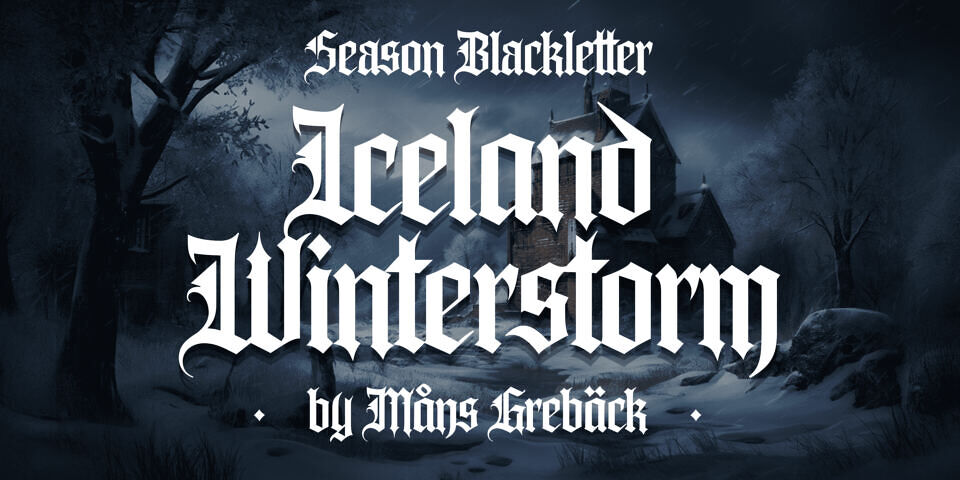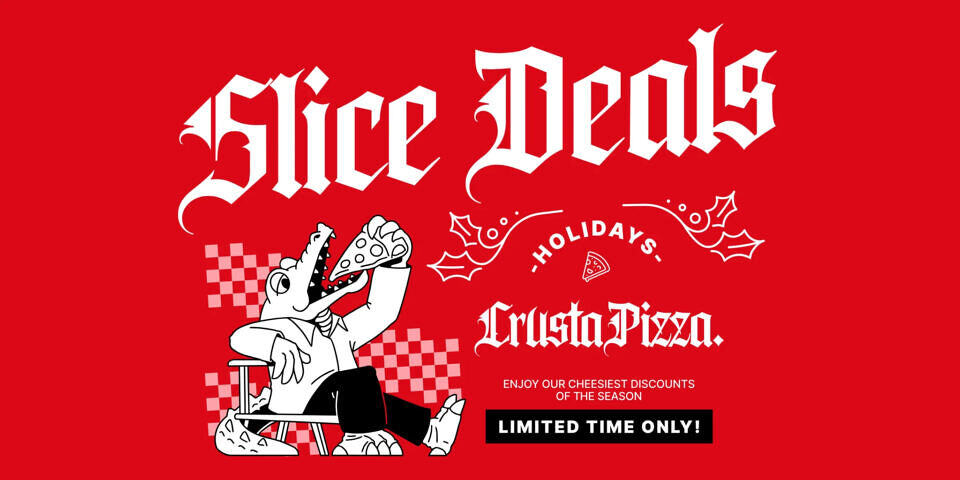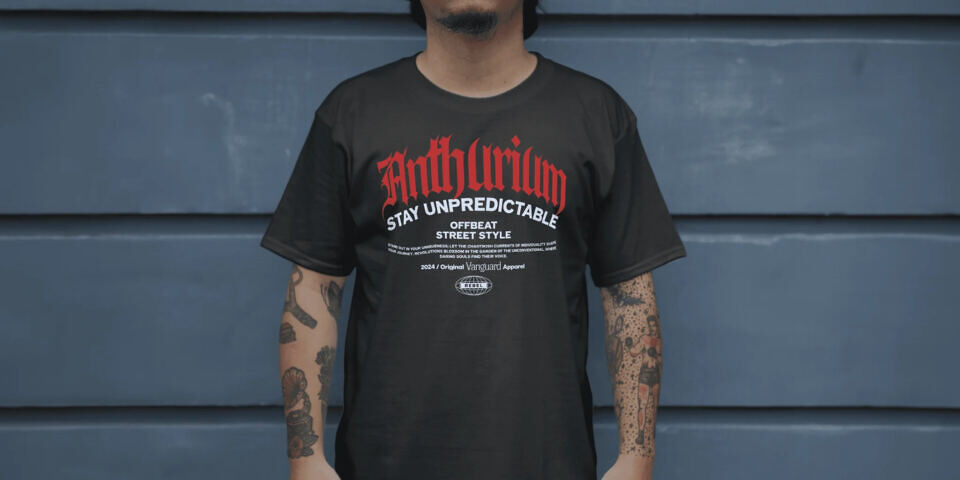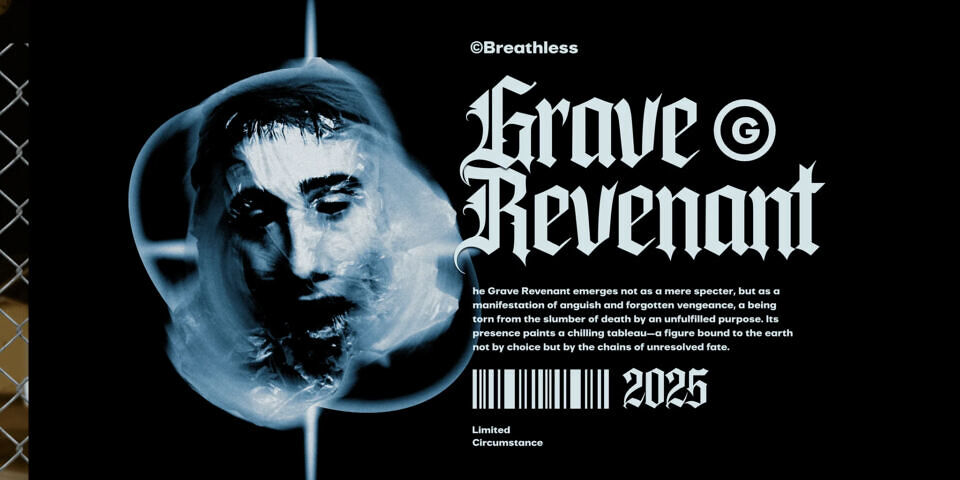
Iceland Winterstorm is a bold and captivating blackletter typeface, merging medieval gothic artistry with the raw, icy beauty of winter. Its sharp, angular forms resemble frost-covered edges, evoking the chill of snow-laden landscapes and the dramatic allure of winter storms. The lettering feels both harsh and elegant, carrying a cool, crystalline precision that mirrors the frozen wilderness.
Perfect for evoking a sense of medieval heritage, its intricate style is imbued with a cold, cutting aesthetic, making it ideal for designs celebrating wintertime, Christmas, and the snow season. The font captures the essence of icy winds sweeping across a frosted land, seamlessly blending tradition with seasonal charm.